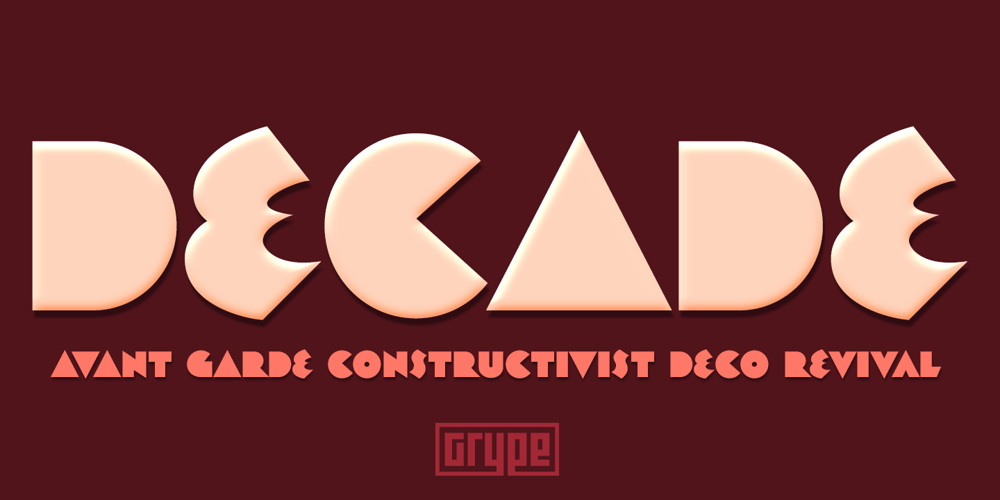
Decade Font Family was designed by Jim Lyles, Brian J. Bonislawsky and published by Grype. Decade contains 1 styles and family package options. Straying outside of our usual logo driven typestyles, but remaining within typographic styles that have a strong brandable vibe to them comes our Decade font. Spawned from the 1938 book “Letters and Lettering” by Paul Carlyle and Guy Oring, this display style has been fleshed out into a full blown typeface, rich with a personality that evokes Art Deco and Jazz sensibility yet rooted in Russian Avant Garde Constructivism. Decade has a constructivist feel, yet contains letterforms that take take its appeal to album covers, holiday cards, minimalist corporate branding, and beyond. It adopts a sturdy yet approachable style with its geometric forms and curves, creating a straightforward, powerful presence that creates a solid foundation for designers and design trends. Here’s what’s included with the Decade typeface: – 368 glyphs per style – including All Capitals, Numerals, Punctuation and an extensive character set that covers multilingual support of latin based languages. (see the 5th graphic for a preview of the characters included) Here’s why Decade is right for you: – You’re in need of geometric typestyle evocative of the Jazz Era – You love that Constructivist look, but are seeking something “different” – You’re looking for an Art Deco Showcard style typeface. – You’re looking for a typeface with letter minimalist styled geometry. – You just like to collect quality fonts to add to your design arsenal